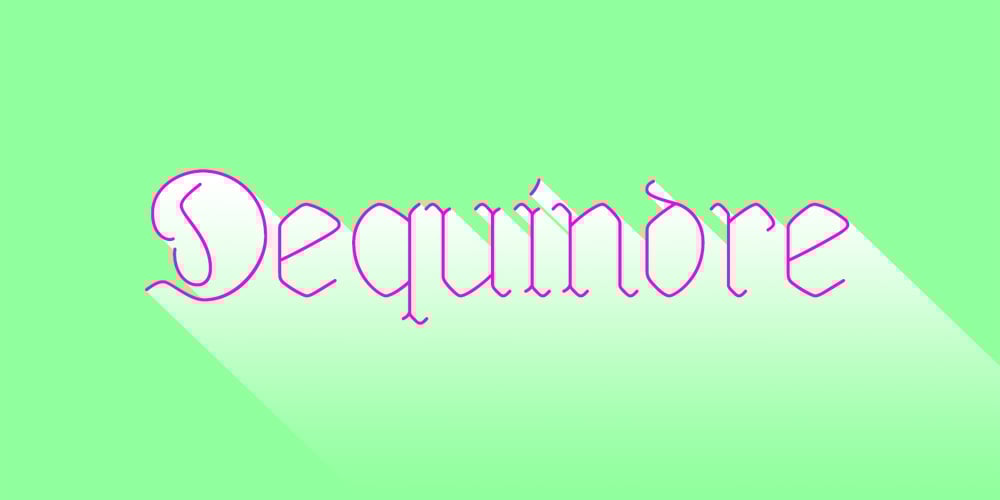
Dequindre Font Family was designed by Alex Jacque and published by Alex Jacque. Dequindre contains 1 styles and family package options. Dequindre is a monolinear blackletter typeface, and was drawn as if grade school handwriting practice sheets came in a blackletter variety. Dropping the thin/thick calligraphic contrast of traditional blackletter glyph construction and instead sticking to the bare skeleton of the typeface, Dequindre manages to bring forth a delicate, contemporary aesthetic that plays off of a core blackletter form. Overall portrayed with a softer, more friendly take on the angular, severe forms of 16th century blackletter style, and through pulling some of the curvier, smoother stroke qualities of Antiqua while still maintaining the overall construction and flourish of Fraktur, Dequindre sits in a unique space in the pantheon of blackletter typefaces.